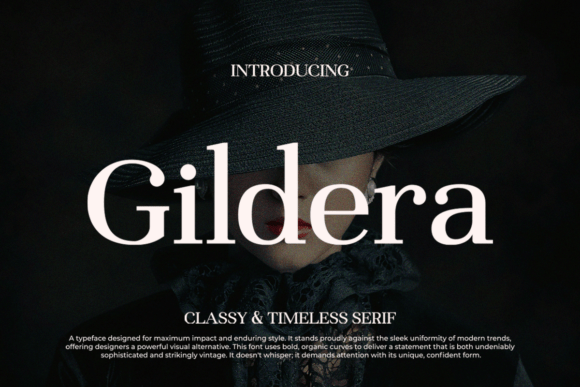
Gildera Font: A Timeless Serif Typeface for Luxury Branding
In a world where modern trends often prioritize sleek uniformity, Gildera Font boldly stands out as a sophisticated alternative with a striking vintage flair. This powerfully visual serif typeface is designed to make a maximum impact while exuding an enduring sense of style and class. Whether you’re a designer, craftsperson, or brand owner, Gildera is an excellent choice for projects that require a sense of heritage, quality, and luxury.
The Power of Gildera
Gildera doesn’t whisper; it uses bold, organic curves to deliver a confident statement that is both undeniably sophisticated and strikingly vintage. Its strong yet elegant letterforms demand attention, ensuring that your branding, headline, or editorial piece will capture the viewer’s eye and hold it. This font embodies class and timelessness, making it perfect for upscale and confident branding.
Perfect for Luxury Branding
Gildera is the ideal typeface for high-end luxury brands, classic magazine titles, sophisticated packaging, cinematic posters, and any identity that needs to convey confidence, history, and uncompromising style. If you want a typeface that can elevate your brand’s visual identity and make a lasting impression, look no further than Gildera.
Key Features of Gildera
- Serif typeface: Gildera features a classic serif design that exudes elegance and sophistication.
- Bold and organic curves: The font’s bold, organic curves create a confident and striking visual statement.
- Timeless style: Gildera’s design ensures that your branding or editorial piece will remain stylish and relevant for years to come.
- High-end luxury feel: The font’s strong yet elegant letterforms make it perfect for high-end luxury brands and classic magazine titles.
Why Choose Gildera?
There are many reasons why designers and craftspersons choose Gildera for their projects. Here are a few:
- Uniqueness: Gildera’s bold and organic curves set it apart from more traditional serif typefaces.
- Versatility: The font is suitable for a wide range of projects, from luxury branding to editorial design.
- Elegance: Gildera’s elegant letterforms make it perfect for projects that require a sense of sophistication and refinement.
- Impact: The font’s bold design ensures that your branding or editorial piece will make a lasting impression.
How to Use Gildera
Using Gildera in your design projects is easy. Here are a few tips to get you started:
- Headlines and titles: Use Gildera for headlines and titles to create a bold and striking visual statement.
- Branding and logos: The font is perfect for luxury branding and logos that require a sense of elegance and sophistication.
- Editorial design: Use Gildera for editorial design projects, such as magazine titles, articles, and advertisements.
- Packaging and posters: The font is also suitable for packaging and poster design, where a bold and eye-catching visual statement is required.
In conclusion, Gildera Font is a powerful and sophisticated serif typeface that is perfect for designers and craftspersons who want to create a lasting impression. Its bold and organic curves, timeless style, and high-end luxury feel make it an excellent choice for a wide range of projects, from luxury branding to editorial design. Whether you’re looking to create a bold visual statement or add a touch of elegance to your design, Gildera is the perfect choice.